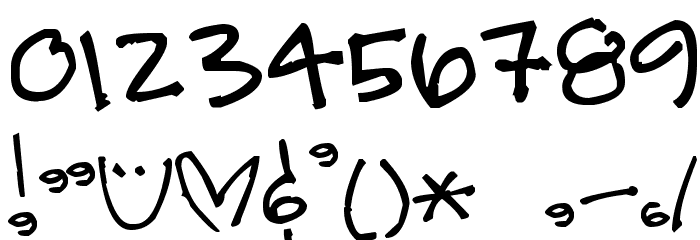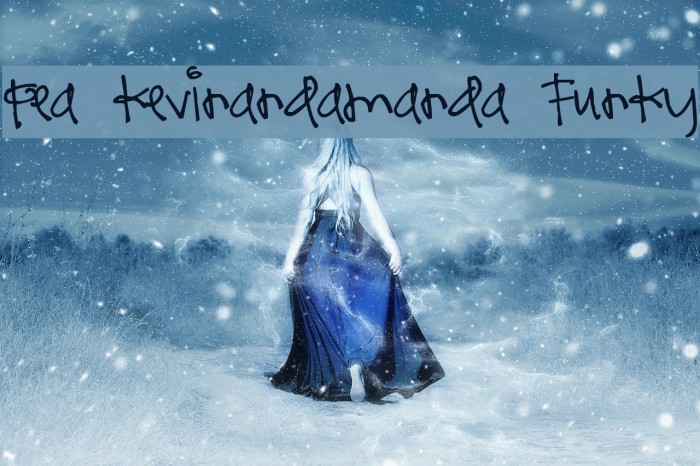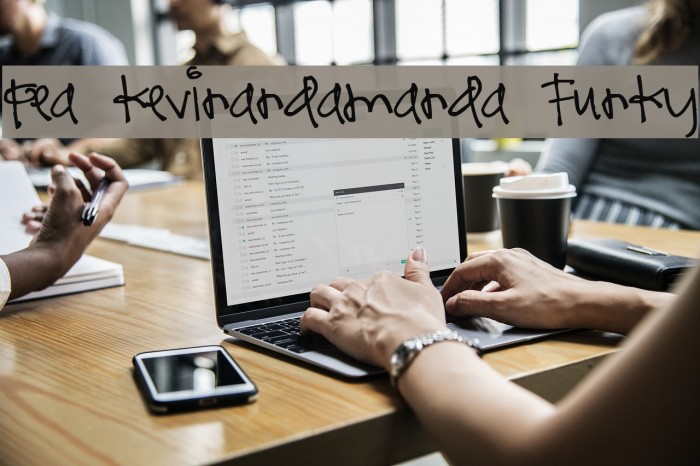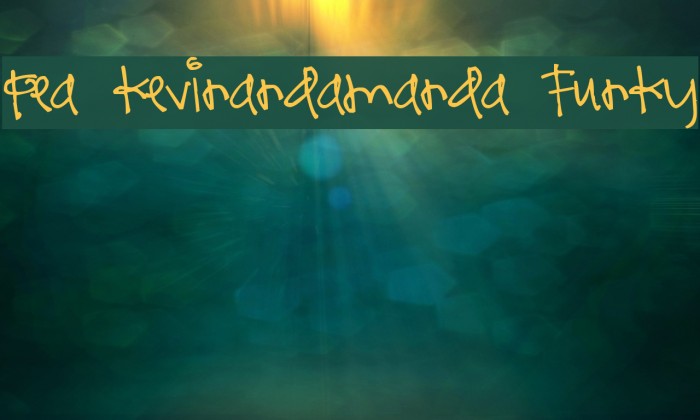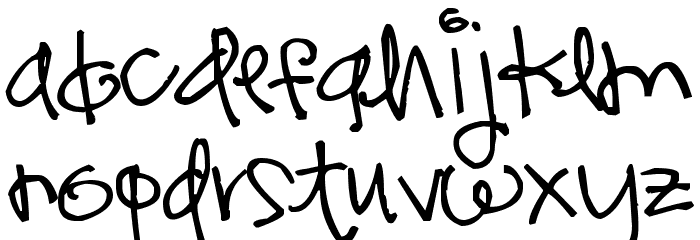
Pea kevinandamanda Funky Font
Pea kevinandamanda Funky Description
This font exudes a playful and casual vibe, characterized by its handwritten style with a touch of whimsy. The letters are unevenly sized and slightly tilted, giving it an informal and friendly appearance. The strokes are bold and confident, with a consistent thickness throughout, contributing to its legibility despite the quirky design. The characters are closely spaced, enhancing the cohesive look of the text. This font includes a full set of uppercase and lowercase letters, numbers, and a variety of special characters, making it versatile for different uses.
A playful, handwritten font with bold strokes and quirky character spacing from Uncategorized fonts.
- Proposed Projects: Ideal for children's books, greeting cards, casual invitations, and playful branding projects.
- Character Spacing: Tight
- Overall Style: Casual
- Use Case: Headlines, Informal text, Branding